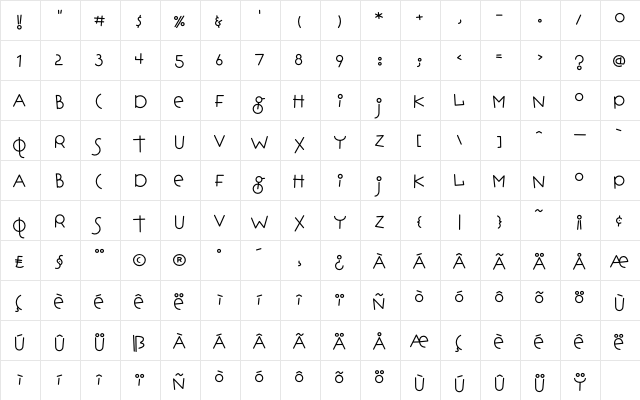
Hopscotch Plain
Design Context for Hopscotch Typeface
Hopscotch offers clean, dependable letterforms without strong stylistic allegiance, making it a practical choice for designers who need flexibility.